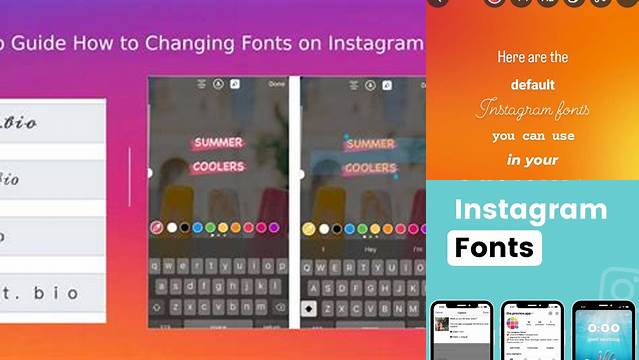
Instagram Font Generator: Spice Up Your Stories!
Hey guys! Ever wondered how to make your Instagram stories pop? One of the best ways is by using cool and unique fonts. But finding the right font and making it look awesome can be a bit of a hassle, right? That’s where an Instagram fonts for stories generator comes in handy. In this ultimate guide, we're diving deep into everything you need to know about these generators, how to use them, and how to make your stories stand out from the crowd. So, buckle up and let's get started!
What is an Instagram Fonts for Stories Generator?
An Instagram fonts for stories generator is basically a tool that lets you create text in various stylish fonts that aren't available in the standard Instagram font options. Think of it as your secret weapon for adding some serious flair to your stories. You know, those times when you want to add a bit of pizzazz? These generators allow you to type in your text, choose from a wide range of fonts, and then copy and paste that text directly into your Instagram story. It's super simple and can make a huge difference in how your content looks and feels. These tools are designed to be user-friendly, so even if you're not a tech whiz, you'll be able to navigate them with ease. The real magic lies in the ability to express your personality and brand identity through the fonts you choose. Whether you're going for a playful, elegant, or bold vibe, the right font can help you nail it. Plus, with so many options out there, you're sure to find something that perfectly matches your style. An Instagram fonts for stories generator is more than just a tool; it's a creative enabler. It empowers you to transform your stories from basic to brilliant with just a few clicks.
Why Use a Font Generator for Instagram Stories?
So, why should you even bother using an Instagram fonts for stories generator? Well, let's break it down. First off, it's all about standing out. Instagram is a visual platform, and everyone is vying for attention. Using unique fonts is a surefire way to catch someone's eye as they're scrolling through their feed. Think about it – how many stories do you see with the same old fonts? Probably a lot! When you use a generator to add a unique touch, your stories instantly become more memorable. It's like giving your content a little personality boost. Beyond the visual appeal, using different fonts can also help you convey different moods and tones. A bubbly, cursive font might be perfect for a fun announcement, while a bold, sans-serif font could be great for a serious message. It's all about matching the font to the vibe you're going for. Another major perk is that these generators can help you stay consistent with your brand. If you have a specific aesthetic, you can use the same font across all your stories to maintain a cohesive look. This is especially important if you're a business or influencer trying to build a recognizable brand. Plus, let's not forget how easy these generators are to use. You don't need any fancy design skills or software. Just type, choose, copy, and paste – it's that simple! An Instagram fonts for stories generator is a game-changer for anyone looking to up their story game and make a lasting impression.
Top Instagram Font Generator Tools
Okay, so you're sold on the idea of using an Instagram fonts for stories generator. But which one should you choose? There are tons of options out there, but let's talk about some of the top contenders. One popular choice is LingoJam. It's super straightforward and easy to use, offering a wide variety of fonts to choose from. Just type in your text, and it instantly generates a bunch of different font styles for you to browse. Another great option is Cool Fonts. This tool not only offers a ton of fonts but also includes symbols and other cool characters you can add to your text. It's perfect for when you want to get really creative and add some extra flair. If you're looking for something a bit more minimalist, Fonts for Instagram is a solid choice. It has a clean interface and a good selection of classic and modern fonts. It's a great option if you want something that's easy to navigate and use on the go. Then there's IGFonts.io, which is another fantastic tool with a user-friendly design and a broad range of font styles. What's cool about this one is that it also gives you a preview of how your text will look in an Instagram story, which can be super helpful. No matter which generator you choose, the key is to find one that fits your style and needs. They all essentially do the same thing – generate cool fonts – but the user experience and font selection can vary. So, take a look at a few and see which one clicks with you! Using the right Instagram fonts for stories generator can really elevate your content, so it’s worth exploring your options.
How to Use an Instagram Font Generator
Alright, let's get down to the nitty-gritty: how do you actually use an Instagram fonts for stories generator? Don't worry, it's super easy! The process is pretty much the same for most generators, so once you get the hang of it, you'll be a pro in no time. First things first, you'll want to head over to your chosen font generator website. As we talked about earlier, there are tons of options like LingoJam, Cool Fonts, and Fonts for Instagram. Once you're on the site, you'll usually see a text box where you can type in your message. Go ahead and type whatever you want to appear in your story – a catchy caption, a fun announcement, or whatever else you have in mind. Next, the generator will work its magic and display your text in a bunch of different fonts. This is where the fun begins! Scroll through the options and see which fonts catch your eye. You'll likely find everything from elegant scripts to bold, blocky letters. When you find a font you like, simply copy the text. Most generators have a handy